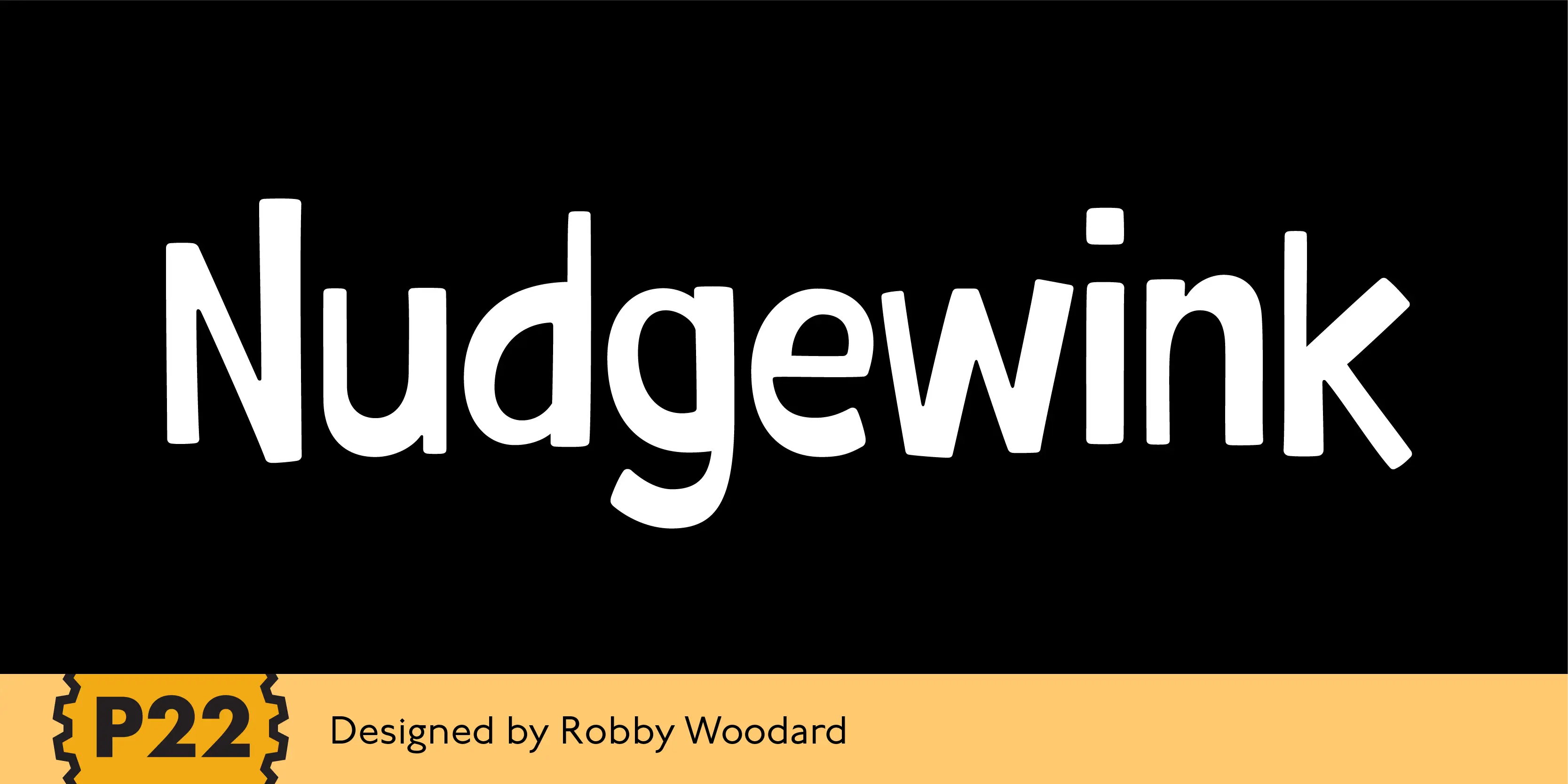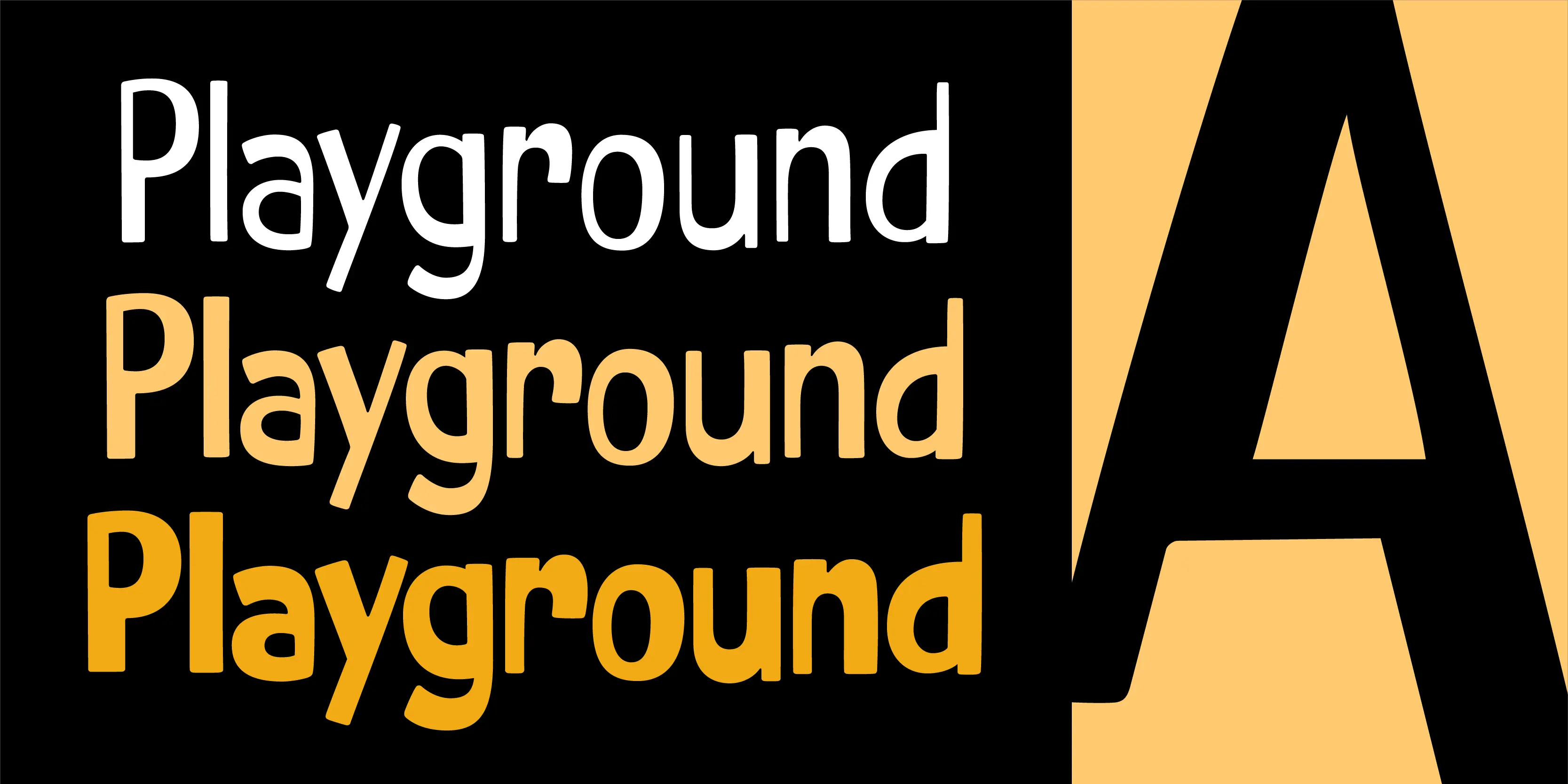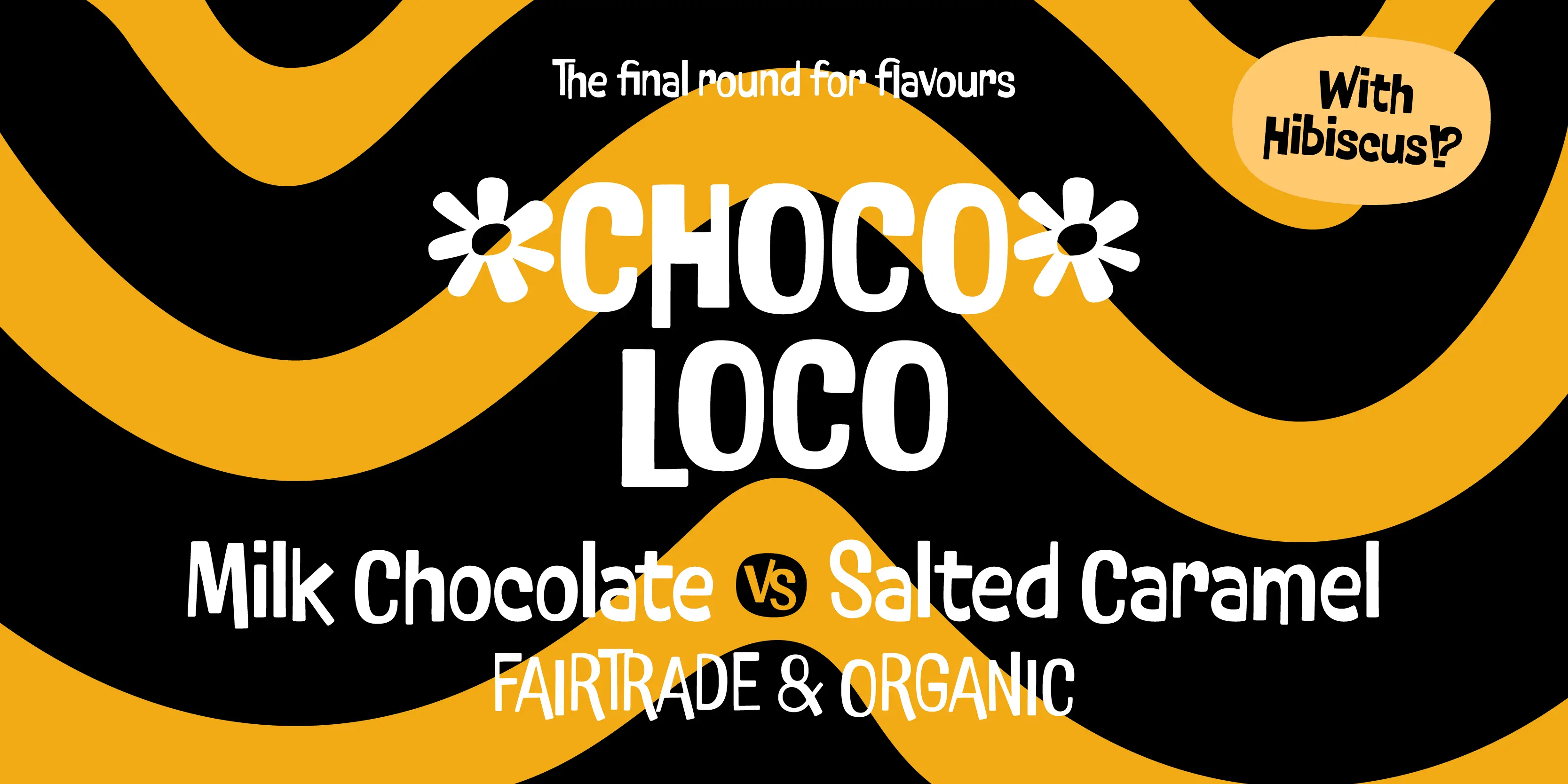
Nudgewink Fonts
Nudgewink
P22 Nudgewink is a funky font family with a humorously retro attitude and a crazy bouncy baseline. With oodles of alternates and groovy graphic dingbats, creating something with a more eye-catching and hand-lettered look is super easy! So consider this family your ticket to playful and boisterous graphic design! Wonderfully wild candy packaging, theater posters, album art, book covers, magazine spreads, and so much more! So check it out, load it up, and turn it on!
- Common Ligatures
- Discretionary Ligatures
- Fractions
- Ordinal Numerals
- Stylistic Alternates
- Stylistic Sets
- Subscript
- Superscript